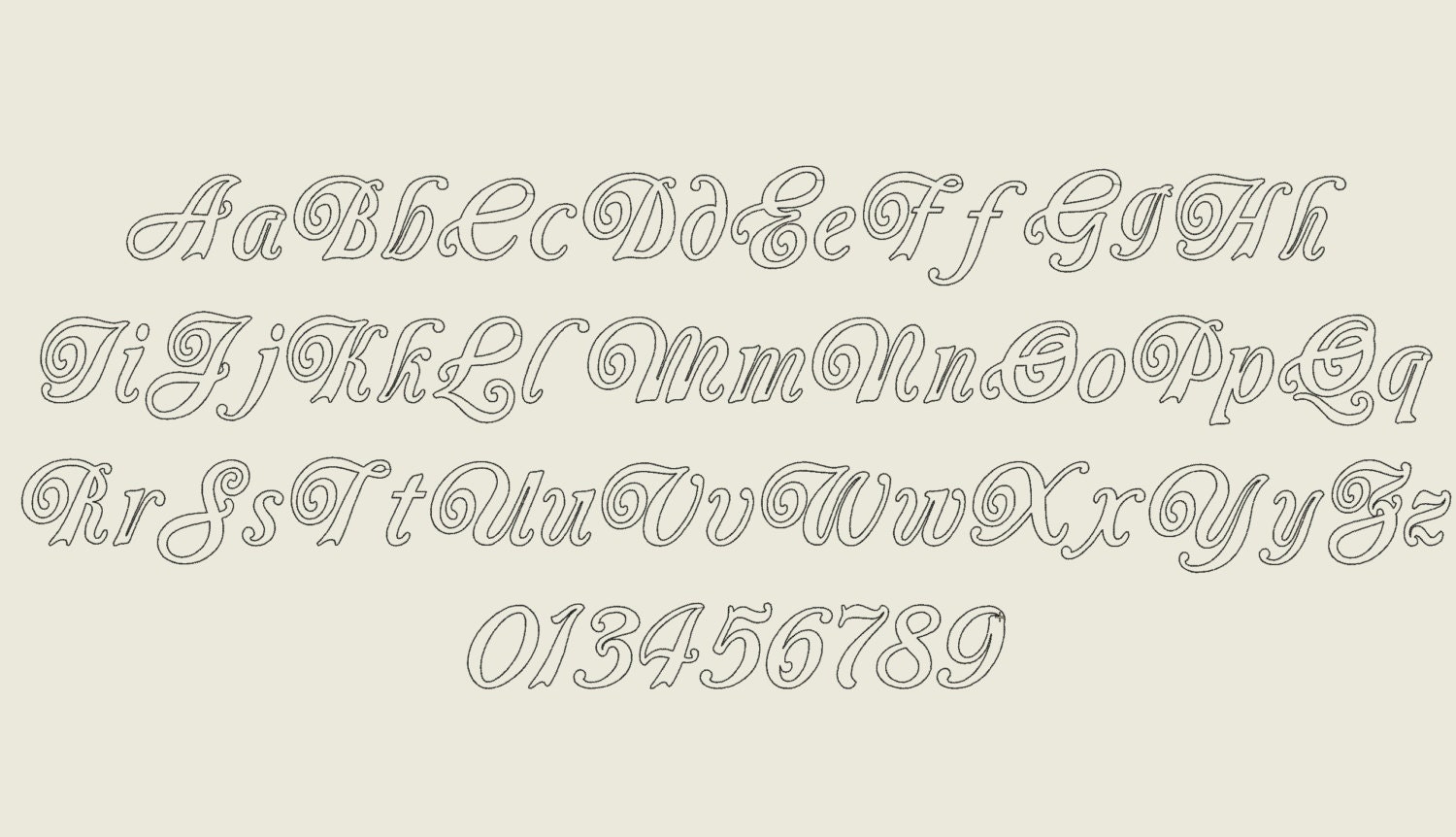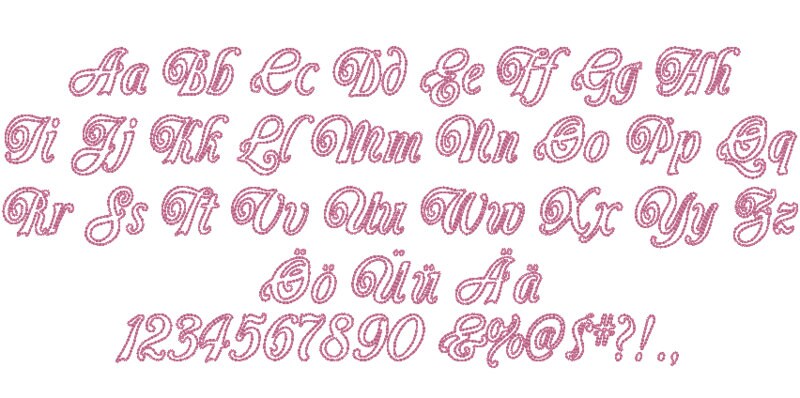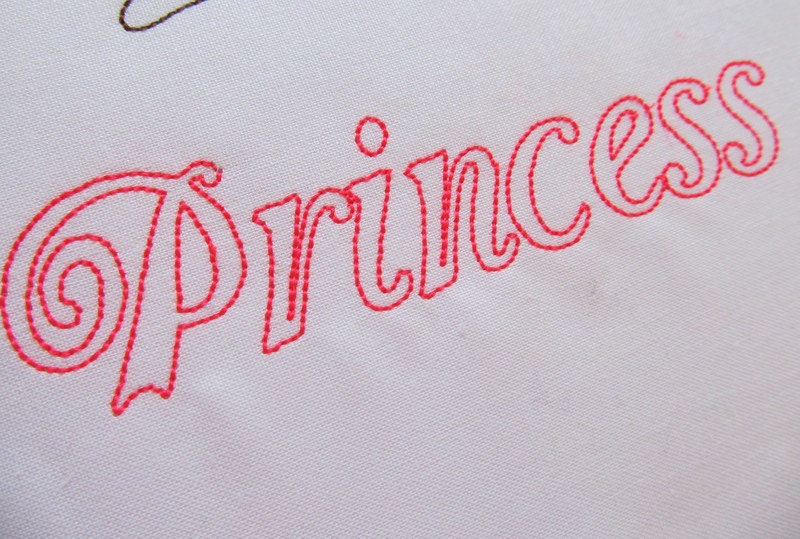
Princess Raggy, raggedy outline font, Bean stitch outline, simple triple stitch line, cursive font machine embroidery design in assorted sizes
Simple bean stitch outline curly font. Awesome for any project!